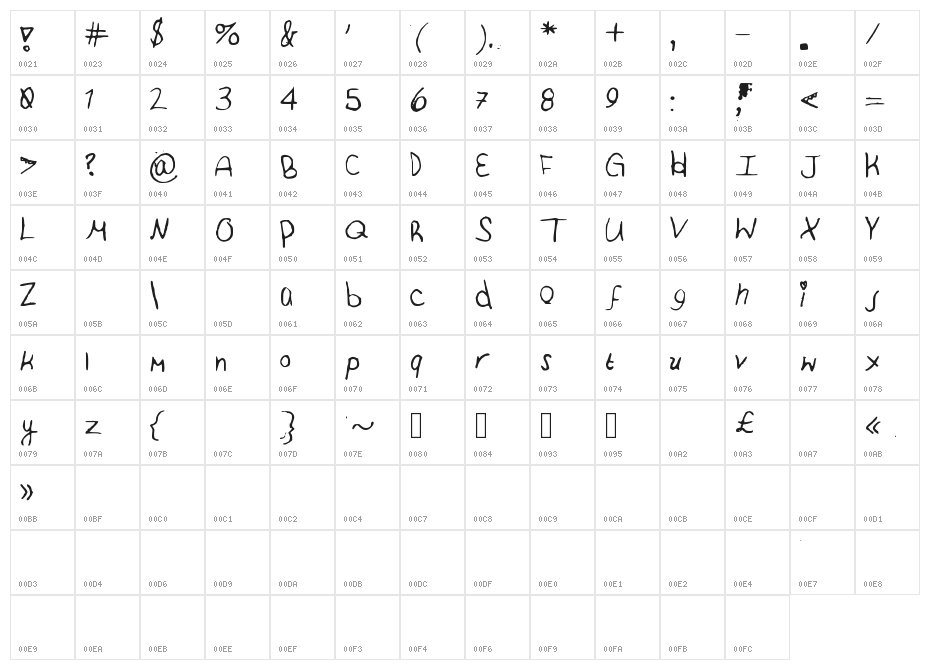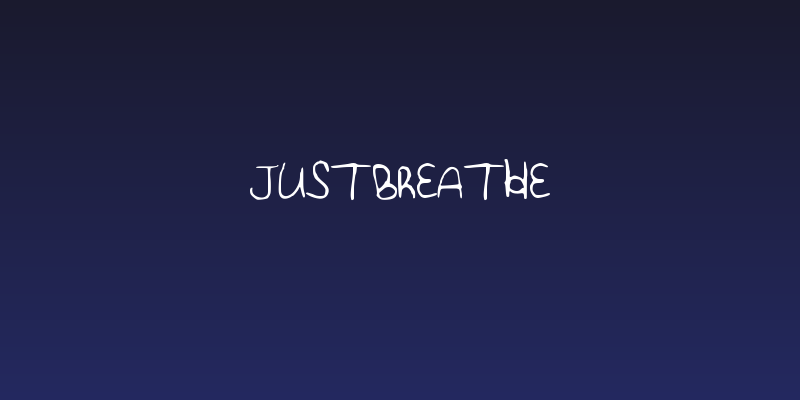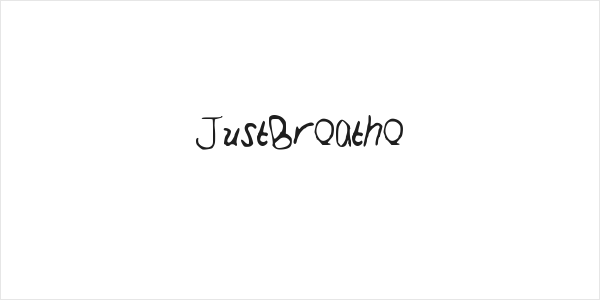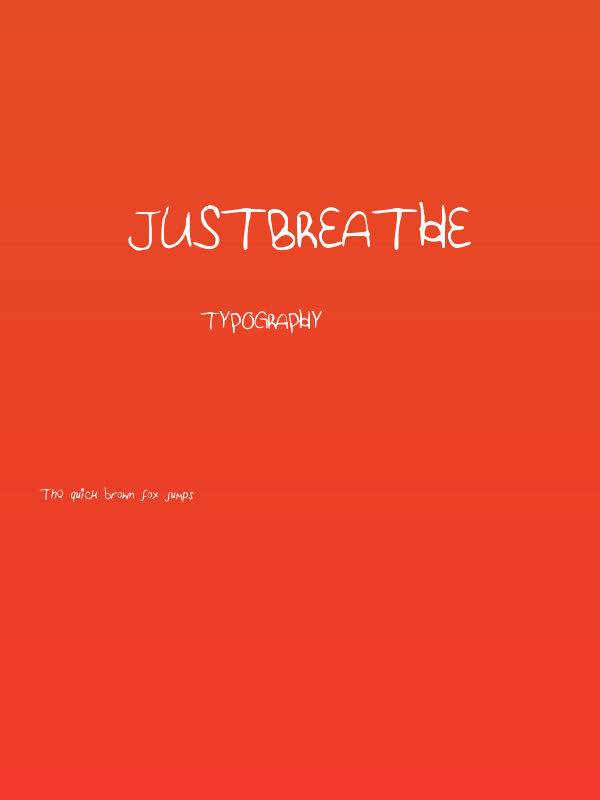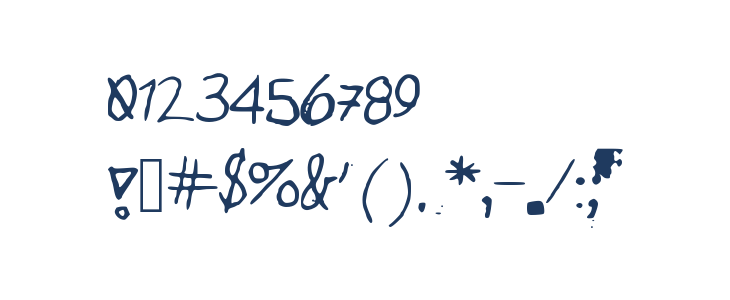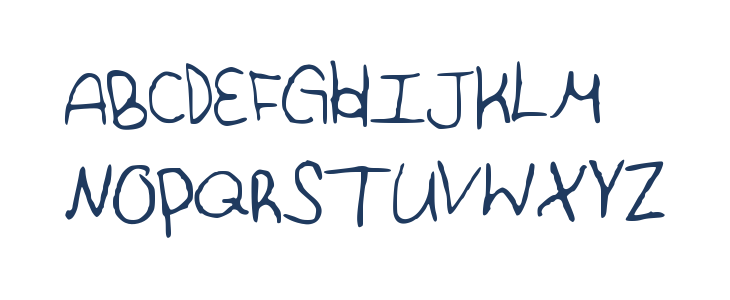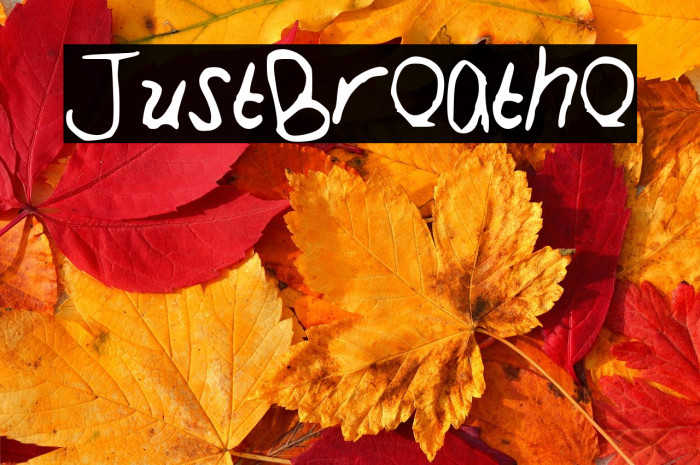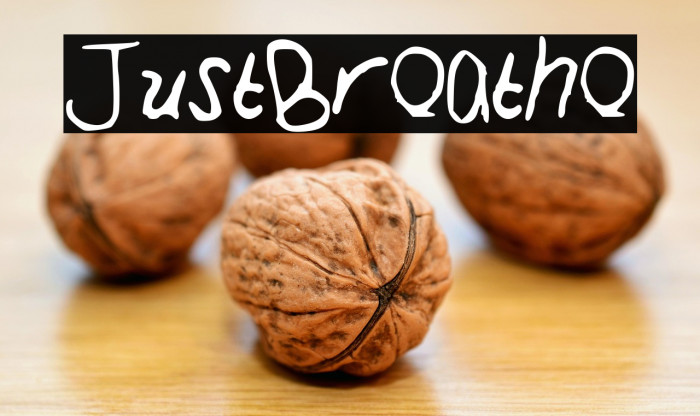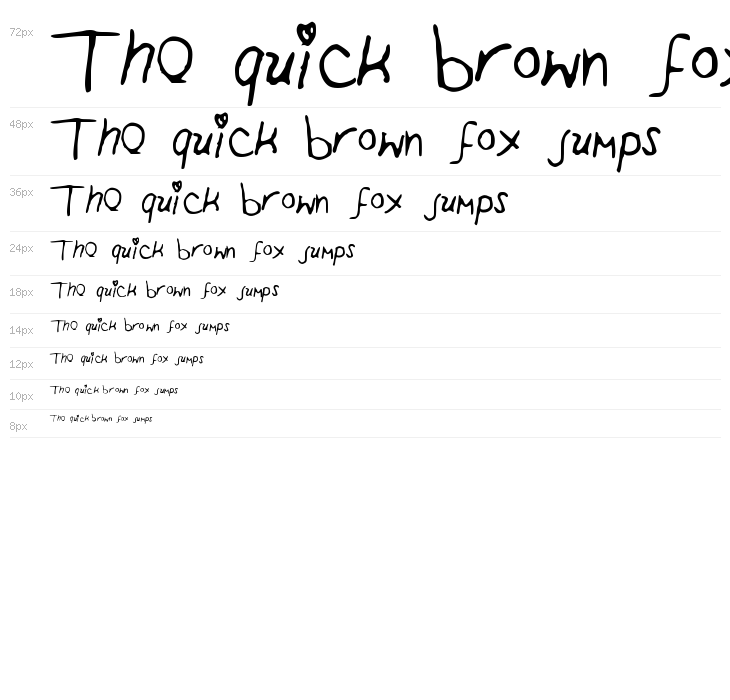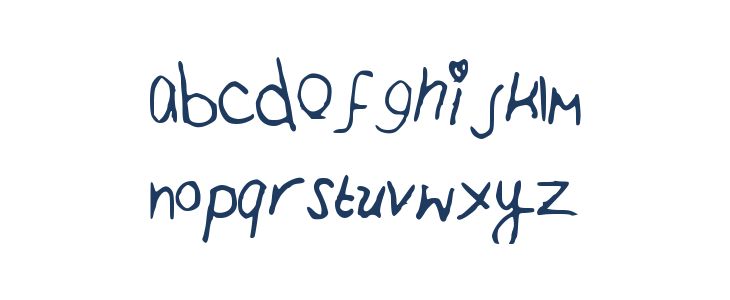
JustBreathe Font
JustBreathe Description
Playful, handwritten style font with irregular, casual strokes and a whimsical appearance.
| Overall Style | Casual, Playful, Whimsical |
| Use Case | Children's books, informal invitations, creative projects, logos, posters. |